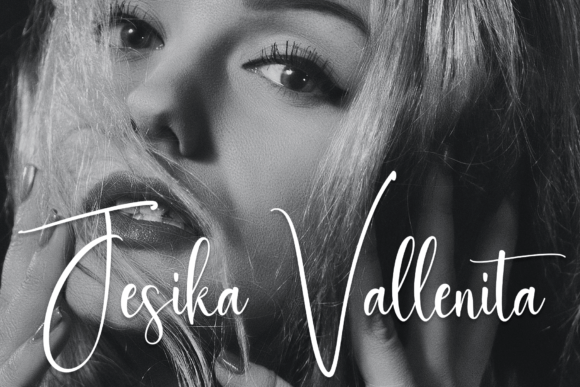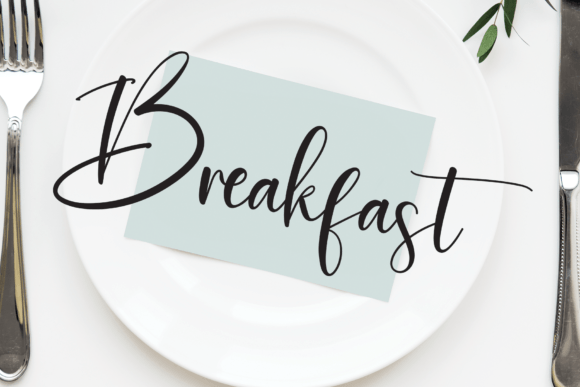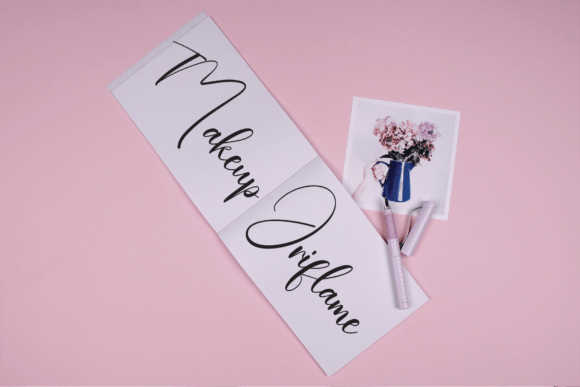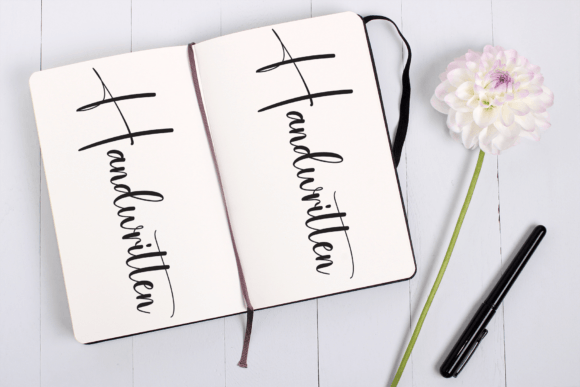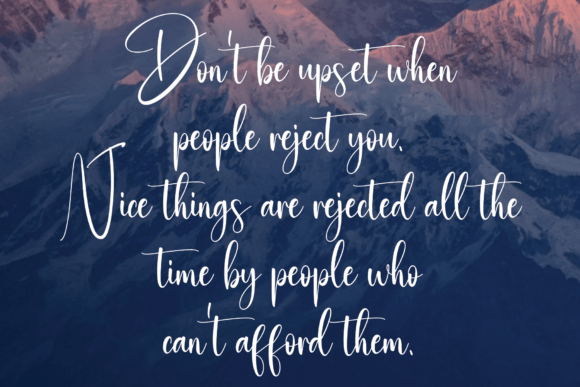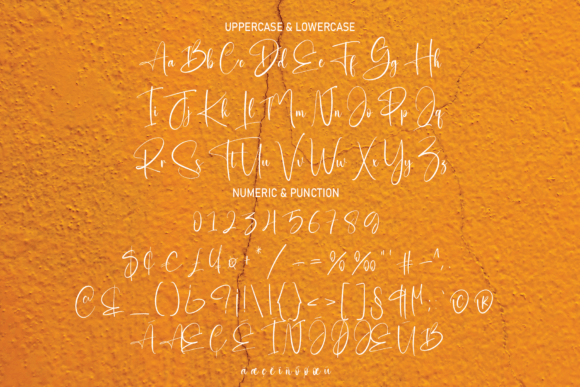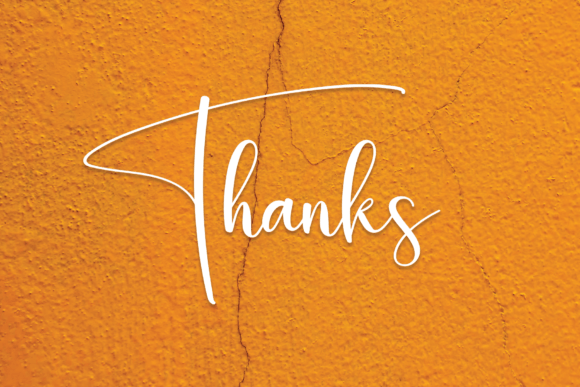
Interesting Font
“Interesting” is a magical handwritten font meticulously crafted to infuse a touch of elegance into your designs. Whether you’re in search of fonts for Instagram posts or calligraphy scripts for DIY projects, this font has the power to transform any creative idea into a true piece of art.
The charm of “Interesting” lies in its magical and handcrafted appearance. The carefully designed letterforms exude an air of elegance, making it a versatile choice for a wide range of design applications. Whether used in digital media or on physical projects, “Interesting” brings a touch of sophistication to your typography.
For Instagram posts and social media graphics, “Interesting” elevates your visual content with its magical and captivating style. The handwritten charm adds a personal touch to your messages, making them more engaging and visually appealing.
In DIY projects, “Interesting” becomes a valuable tool for those seeking to infuse elegance into their creations. Whether it’s invitations, cards, or other handmade items, the font enhances the overall aesthetic, turning your projects into works of art.
The magic of “Interesting” goes beyond just letters; it creates an enchanting atmosphere that resonates with creativity and style. Its versatility allows it to adapt to various design ideas, ensuring that it complements your vision and enhances the overall artistic expression.
In summary, “Interesting” is not just a font; it’s a magical design element that adds elegance and sophistication to your creative endeavors. Let “Interesting” be the handwritten font that turns your projects into true pieces of art, capturing the imagination and admiration of your audience.